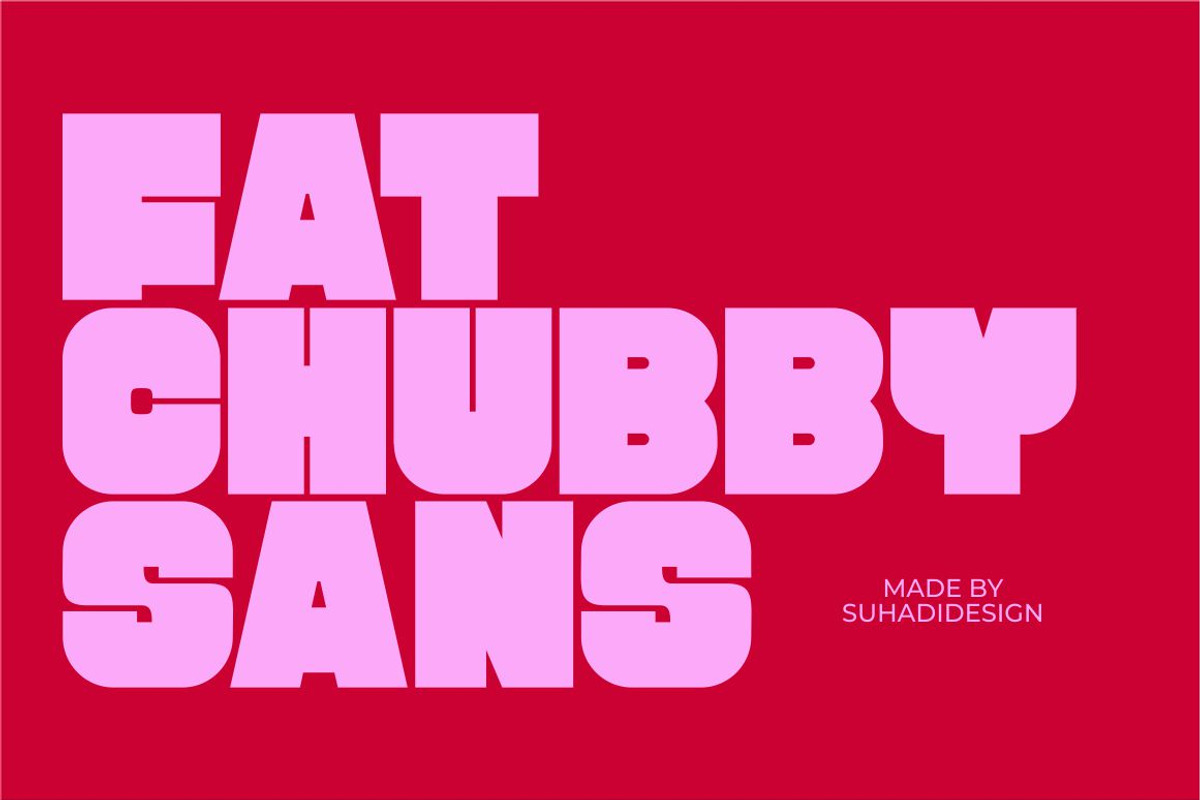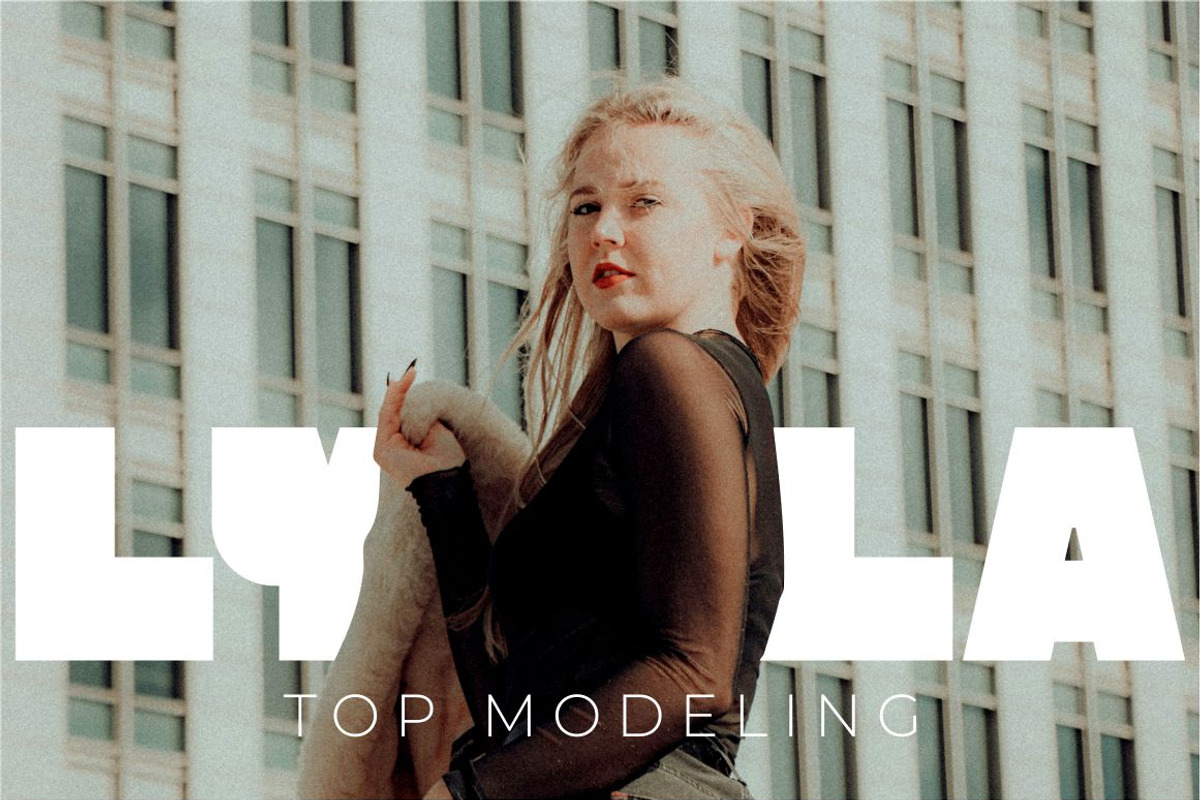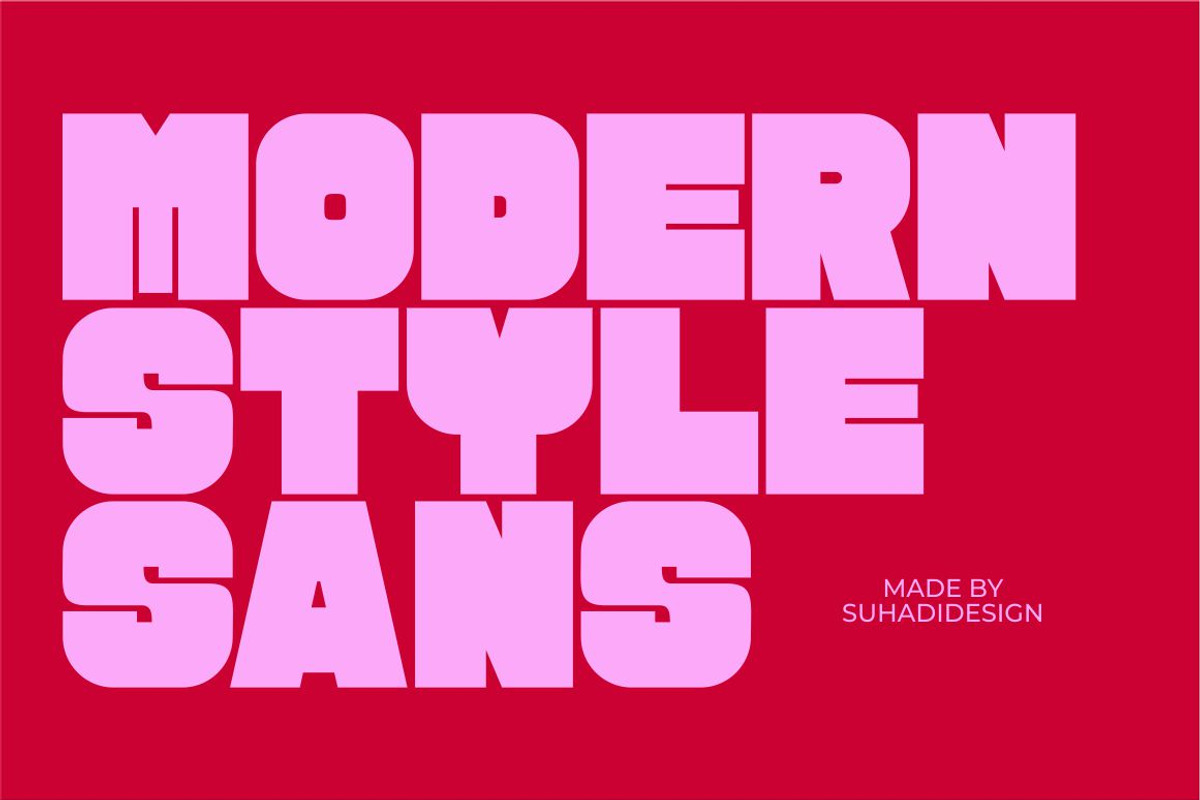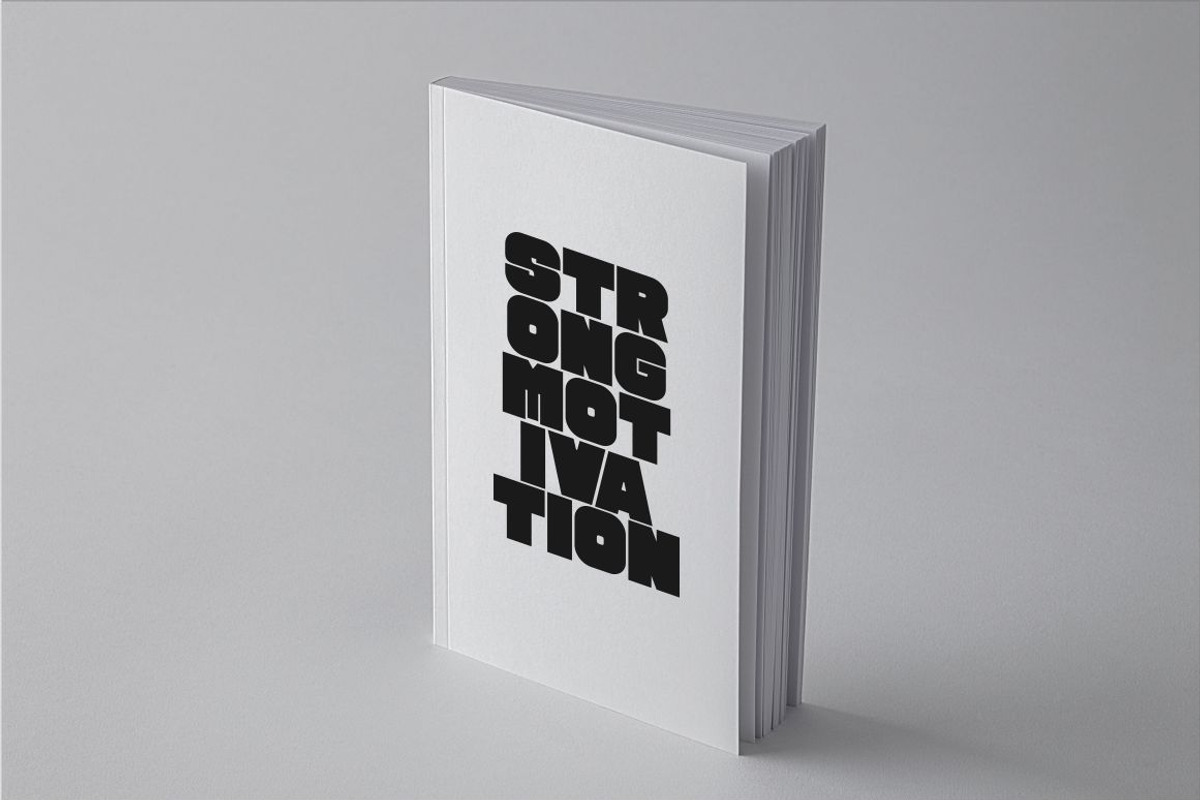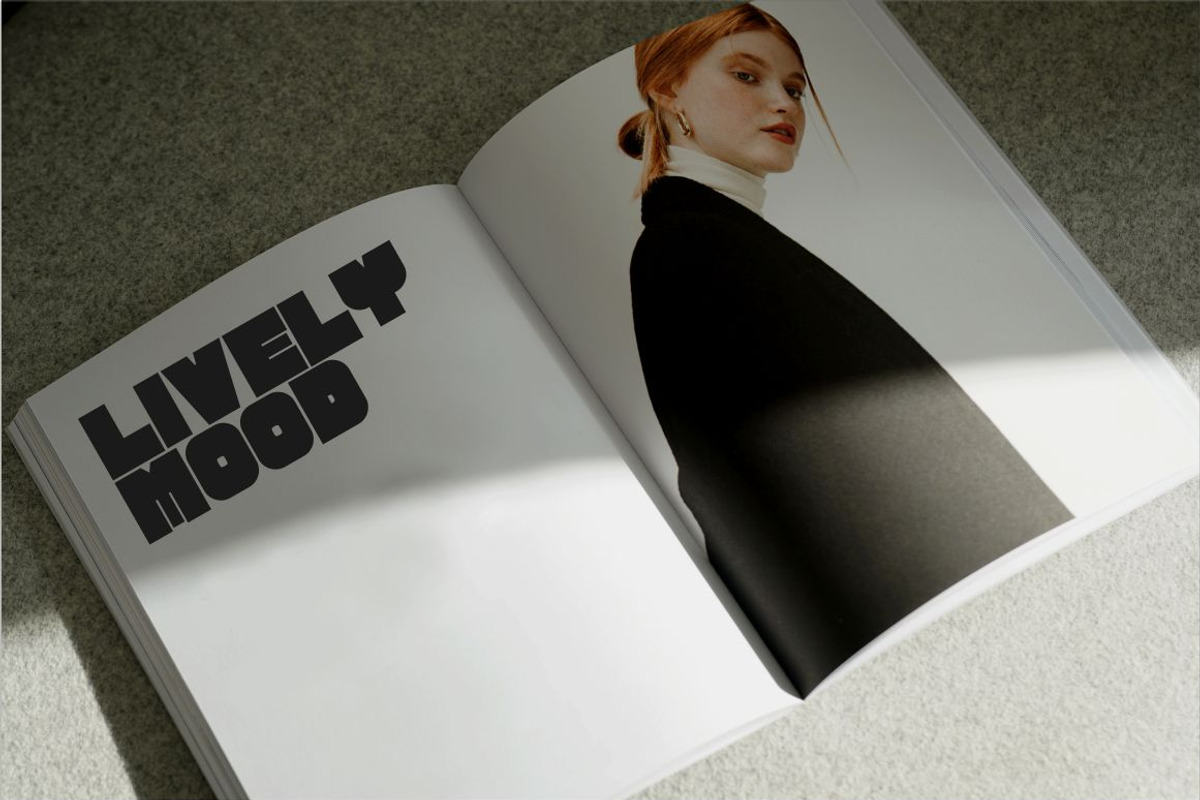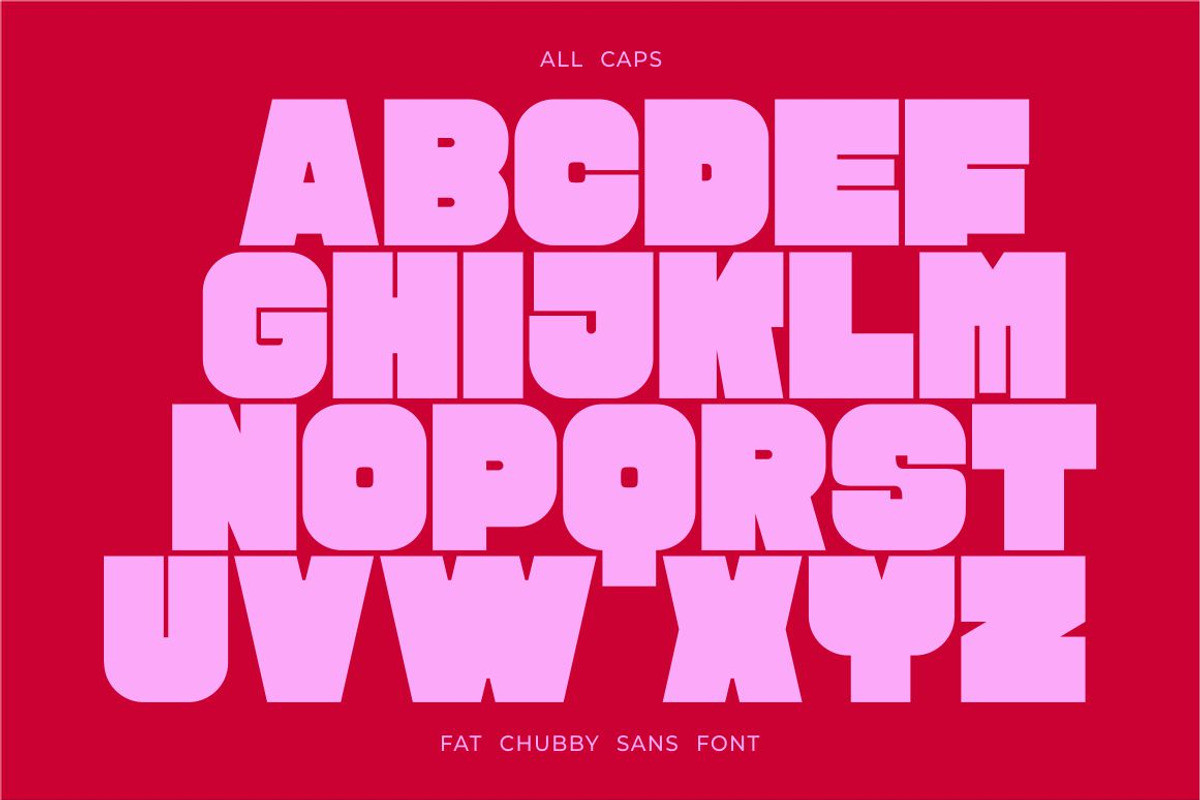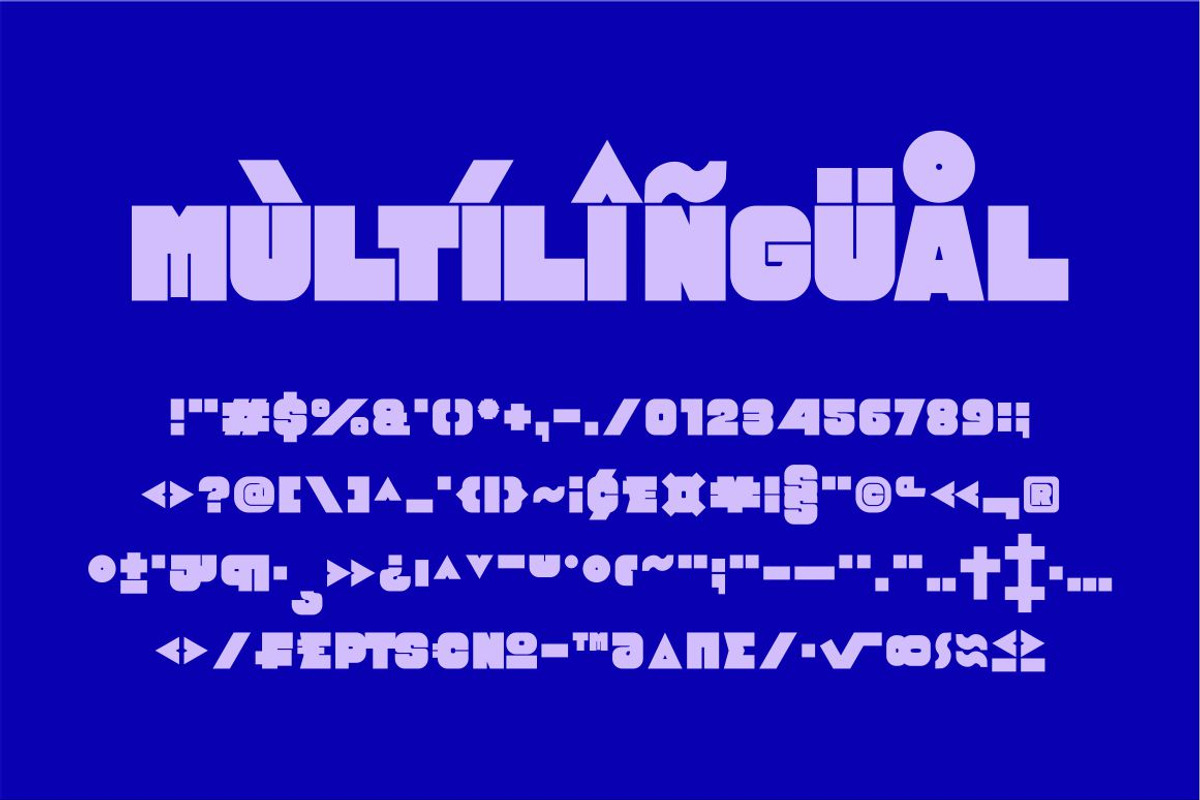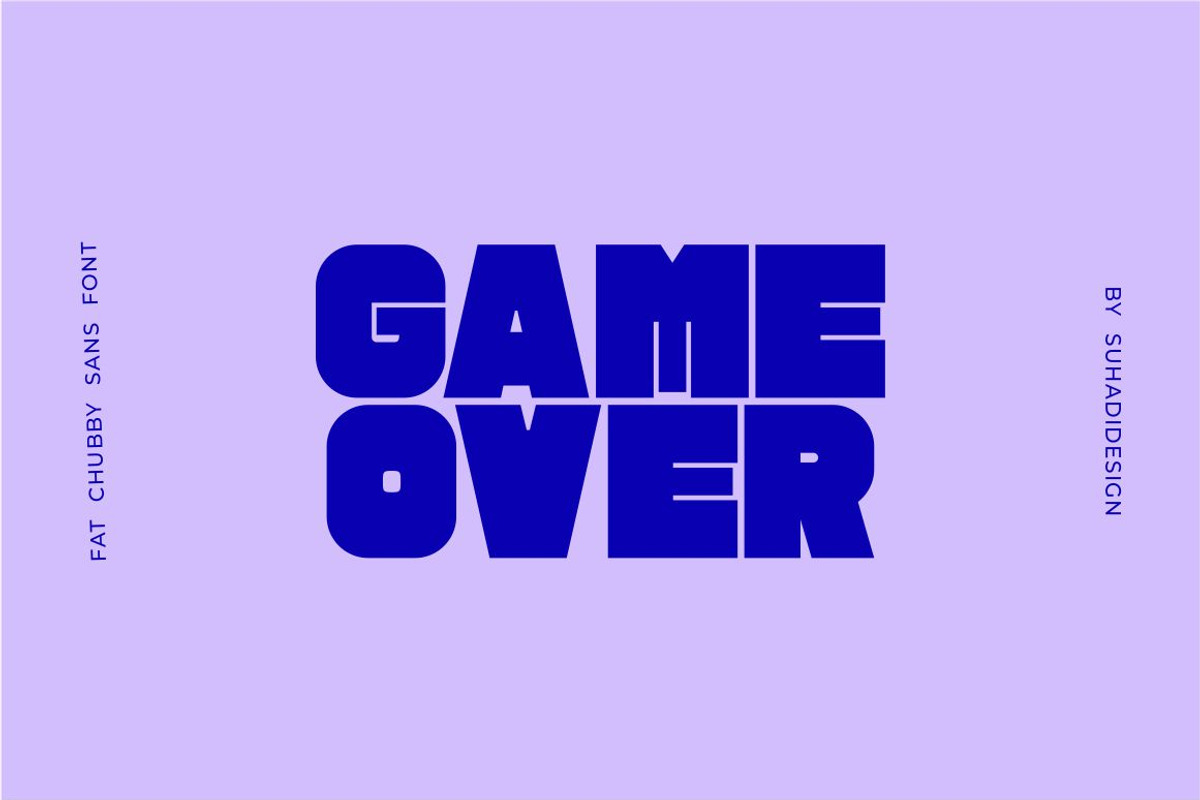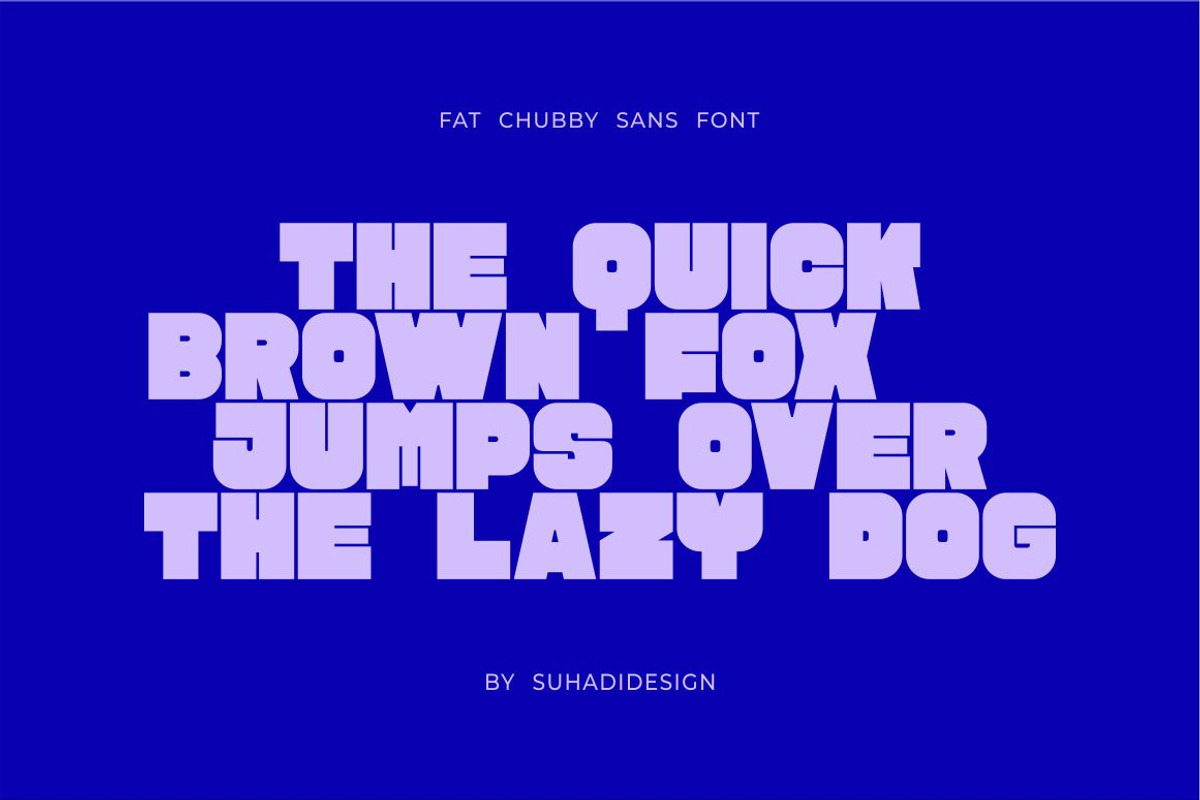
Fat Chubby Sans - Sans Serif Font
Fat Chubby Sans Serif Font
Hi Ladies and Gentlemen! In accordance with market demand, I created a bold sans serif font that was cool, elegant and handsome, so I decided to create this sans serif font. The Fat Chubby Sans font is a sans serif font presented in a modern style with the hope of becoming a market favorite. We keep this font looking elegant, classy, modern, stylish, contemporary and easy to use. Fat Chubby Sans Font is a great choice for magazine, book cover, shopping bag, packaging, logo, label, fashion, poster, banner, bag, branding, fashion, brand name, branding, quote and other projects. The Fat Chubby Sans font is here to take your designs to the next level.
The Fat Chubby Sans font style will make you love designing and taking advantage of the cool design results from this font. Stay tuned with us for more font creation updates :)
• All caps • Multilingual support • Numbers and punctuation